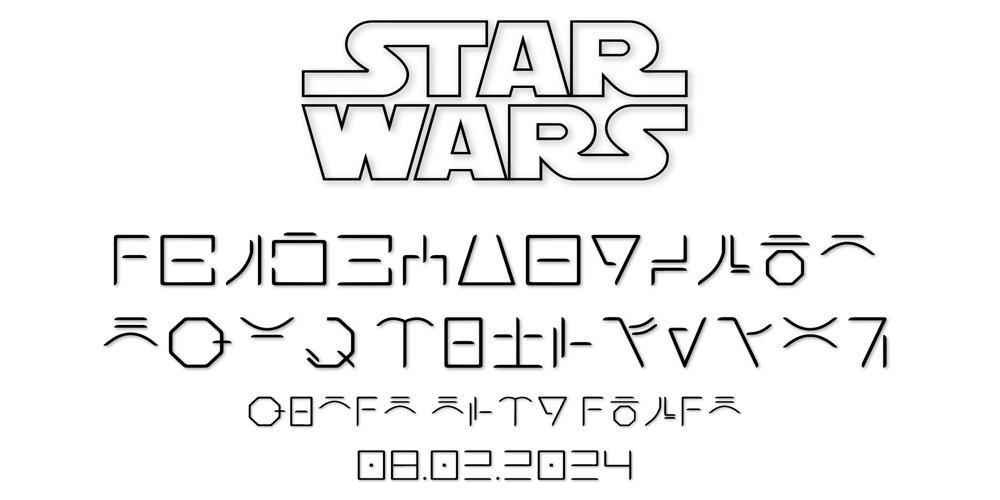
Ongunkan Star Wars Jabba Font Family was designed by Osman Nuri ALKAN and published by Runic World Tamgacı. Ongunkan Star Wars Jabba contains 1 styles and family package options. The alphabet was designed by Eric Larson when the Special Edition of the Star Wars original trilogy came out in 1997. At the time, the PepsiCo food corporation and its subsidiaries created several collectible promotions to coincide with the release. Among those were the pizza boxes for Pizza Hut, which featured secret messages written in a cipher called “Jabba’s alphabet.” The code key was provided in the box. Larson stated that he based his alphabet on a modern Hebrew font after noticing similar markings on the original prop of Han Solo frozen in carbonite, as seen in the 1980 film Star Wars: Episode V The Empire Strikes Back.In July, 1999, two fans known as “Mike Dolan” and “Tommy of Escondido” crafted a typeface reproducing Eric Larson’s Huttese alphabet. That font was originally available at Geocities.com under the name “Trade Huttese.”In the 2002 video game Star Wars: Racer Revenge, that alphabet was used in the podracer selection menu. With the diversity of the playable characters’ names, the entire alphabet was featured in the game, and the mapping corresponds both with Larson’s and that of the “Trade Huttese” typeface.